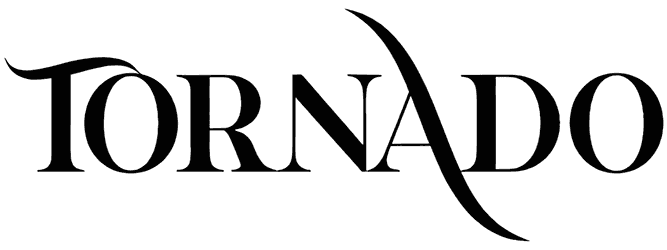
Tornado Font
Turn the lines and trim your words with Tornado, a luxury serif font with a novel pattern. This classic but modern font includes three styles that can mix with two sets of caps, naive and adorned. No lowercase, numbers, or punctuation for use, yet you can set Tornado on wordmarks, flyers, logotypes, covers, or whatever and be proud of your design.
Tornado – Modern Serif Font is a classic style serif typeface that has been modernised with its unique curves and cut-ins making it one of the most memorable caps fonts on the market. This versatile font can be used for Wordmark Logos, Mastheads, Pull Quotes & Monograms showing both feminine and masculine qualities.